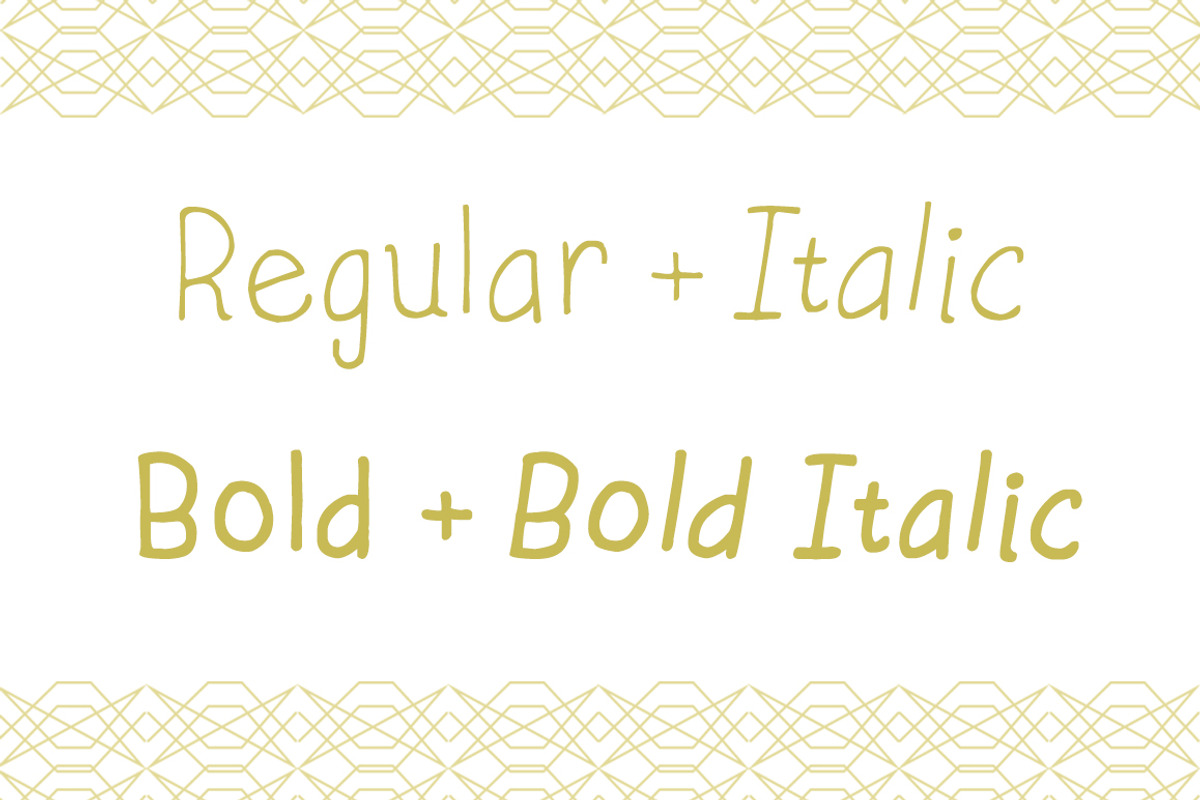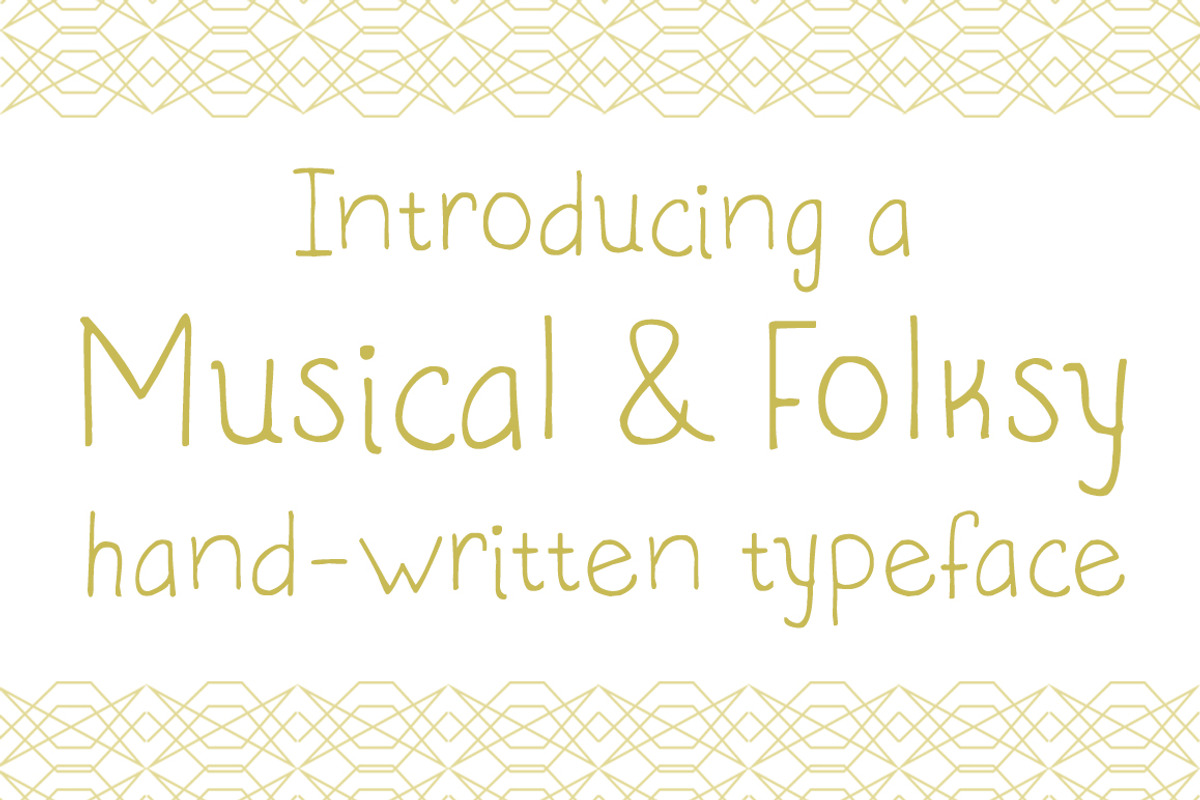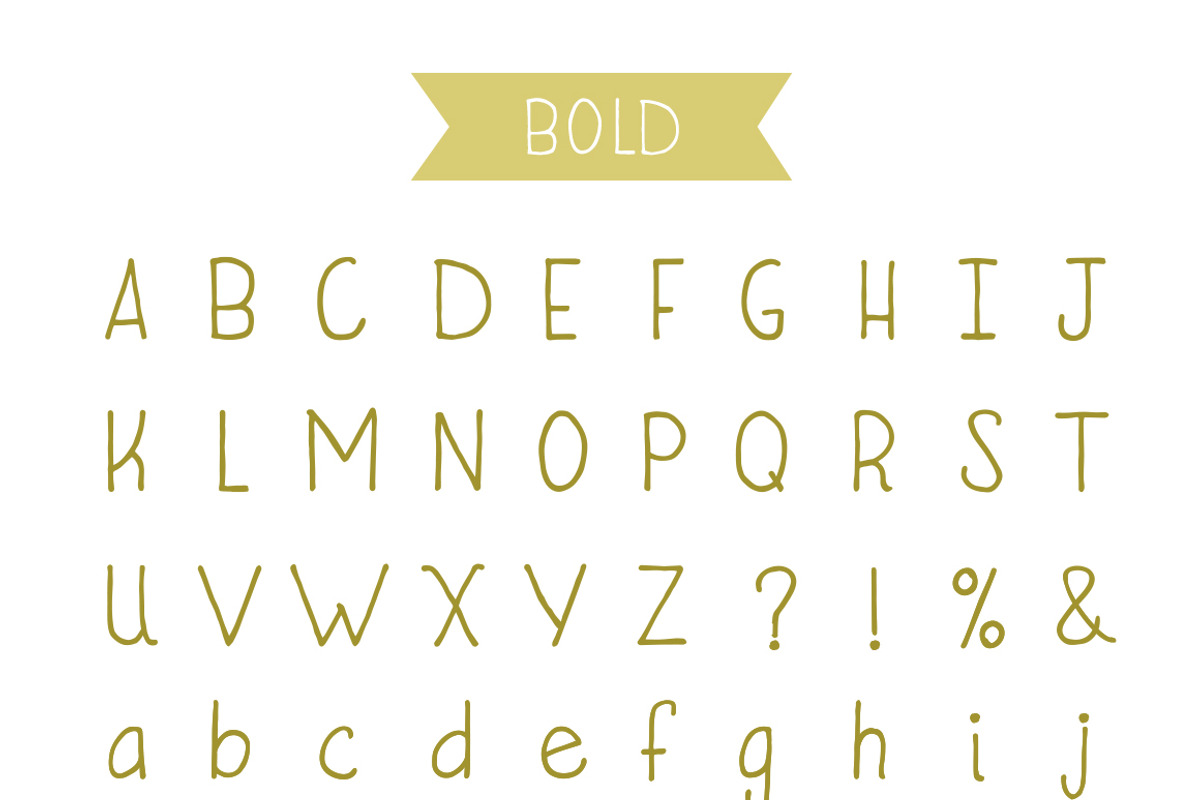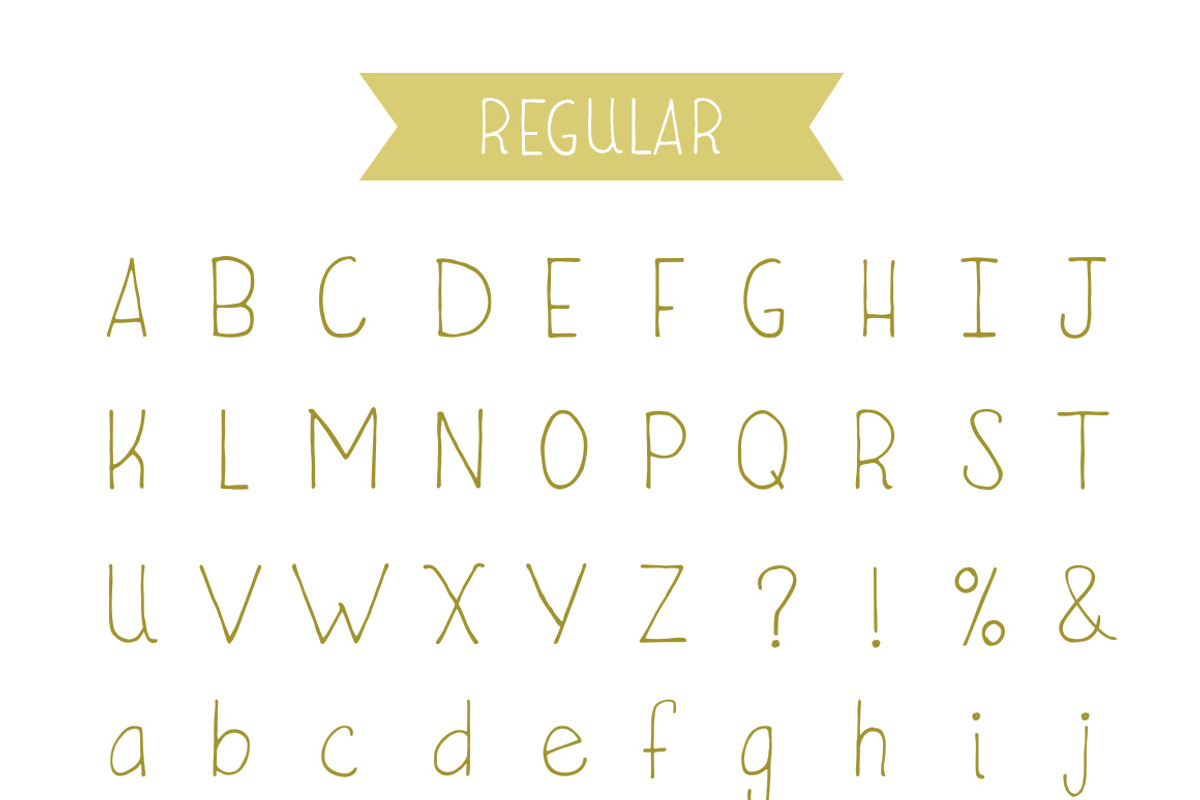
Fiddle 4-Font Family
Fiddle 4-Font Family by MoLa is a font selected for branding, posters, packaging, typography.
Why Fiddle 4-Font Family is worth a look
Fiddle 4-Font Family by MoLa fits naturally into Branding, posters, packaging, typography.